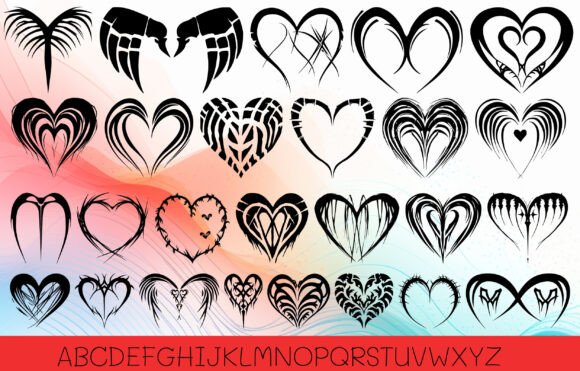
Introduction to Heart Borneo Font
Have you ever found yourself stuck in a creative rut, searching for the perfect design element to bring your project to life? I know I have. It’s like hitting a wall, where every font or graphic seems to blend in with the rest. But then, something magical happens – you stumble upon a unique treasure that sparks inspiration and sets your creative juices flowing. For me, that treasure is the Heart Borneo Font, a stunning collection of tribal-inspired dingbats that will transport you to the lush islands of Borneo.
As a designer, you understand the value of having high-quality design resources at your fingertips. The Heart Borneo Font is a game-changer, offering 26 beautiful designs (A-Z) with intricate heart motifs and traditional tribal patterns. With a transparent background, you can easily integrate these stunning graphics into your next creative project. And the best part? It’s available for free download, making it an invaluable addition to any designer’s toolkit.
Key Features of Heart Borneo Font
- Unique hand-drawn design with a touch of tropical charm, perfect for creative projects
- Perfect for designers and artists working on creative projects, such as logos, graphics, and typography-based designs
Honest Review: Heart Borneo Font
I recently stumbled upon the Heart Borneo Font while searching for a unique design resource for a creative project. As a designer, I appreciate fonts that can add an extra layer of personality to a design, and Heart Borneo Font definitely delivers.
- ✨ Unique and playful design: The font has a charming, whimsical feel to it, making it perfect for projects that require a touch of personality.
- ✨ High-quality design: The font is well-crafted, with clear lines and smooth curves that make it easy to read.
- ✨ Transparent background: This allows designers to easily layer the font over other design elements, making it a versatile design resource.
- ⚠️ Limited character set: The font is not a complete character set, so designers may need to supplement it with other fonts for certain characters or languages.
Overall, I’m impressed with the Heart Borneo Font. Its unique design and high-quality craftsmanship make it a valuable addition to any designer’s toolkit. While it has some limitations, I believe it’s worth the investment for designers looking to add a touch of personality to their creative projects.
Tips for Getting the Most Out of Heart Borneo Font
For the best results, use the Heart Borneo Font on a transparent background to ensure a clean and crisp design. This font is ideal for creative projects, such as logos, invitations, and social media graphics.
The Heart Borneo Font is perfect for:
Valentine’s Day and love-themed designs
Gift tags and wrapping paper
Great Vibes is a beautiful, cursive font that’s perfect for creative projects requiring a touch of elegance. It’s available for free download and features a transparent background, making it ideal for use on various design resources.
Q: Does the Heart Borneo Font have a transparent background?
Yes, the Heart Borneo Font has a transparent background, making it ideal for use on images with complex backgrounds or for creating layered designs. This feature also allows you to easily combine the font with other design elements.
Q: What is the quality of the Heart Borneo Font?
The Heart Borneo Font is a high-quality font, designed to provide crisp and clear text. It is suitable for use in a range of creative projects, from business cards and brochures to websites and social media graphics.